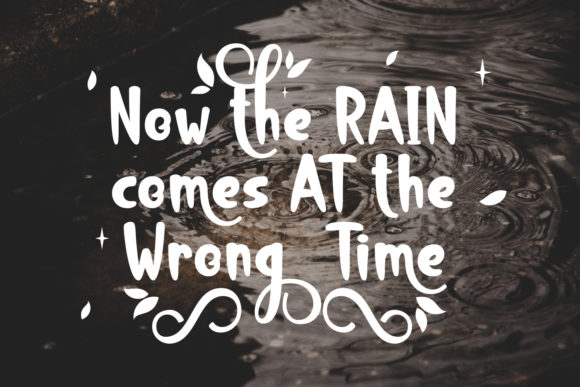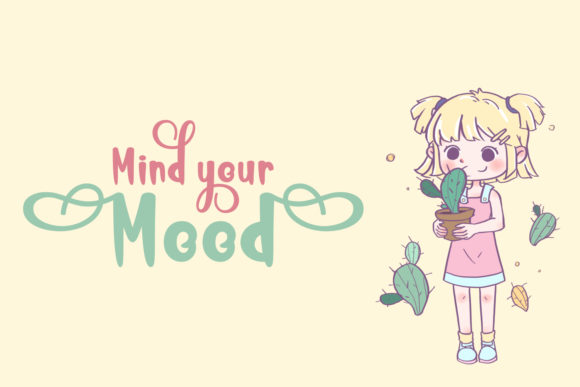
Still Good Font
About Still Good Font
Still Good is a romantic and lovely handwritten font with an adorable feel. Fall in love with its delightful charm!